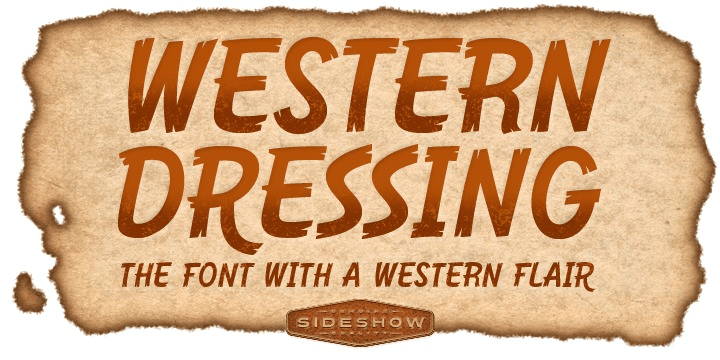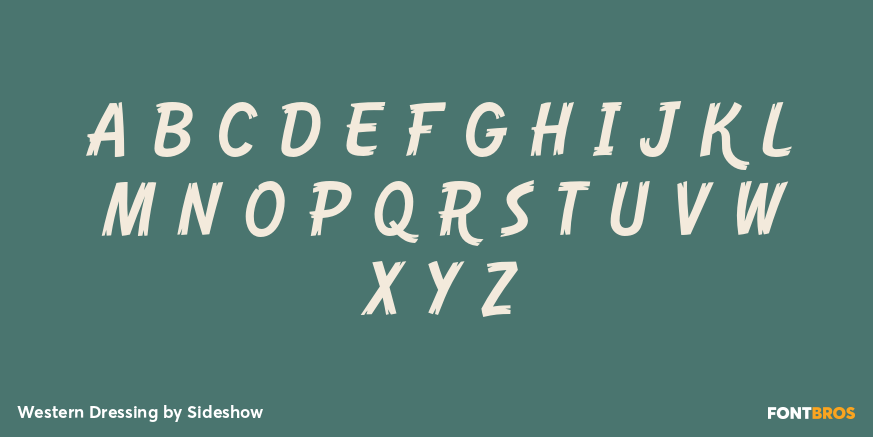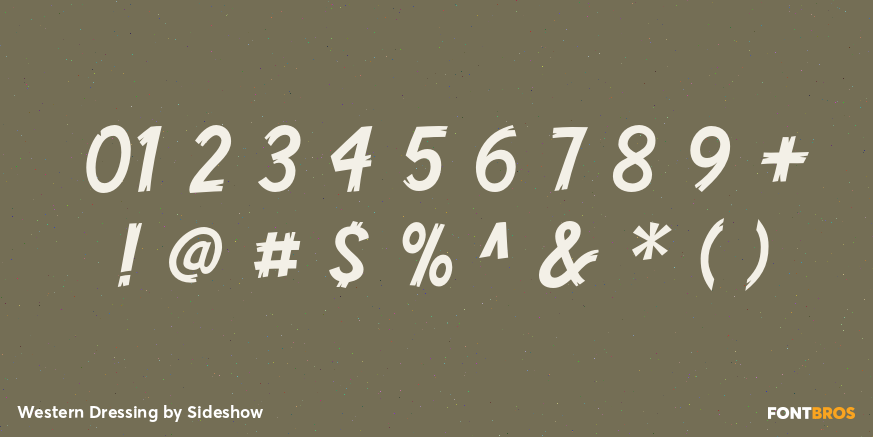
Western Dressing
Font Family by Sideshow
Got a hankerin' for some Bar-B-Q? Hitchin' post need fixin'? Lookin' for a new square dance partner? We've got that all covered right here with Western Dressing! So before you make that lonesome trek way out west, stock up on this fine provision from Squid and Sideshow.